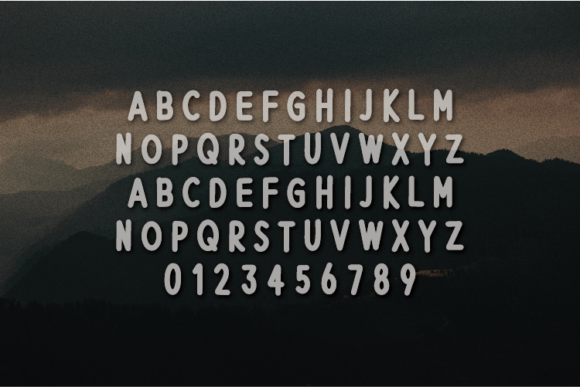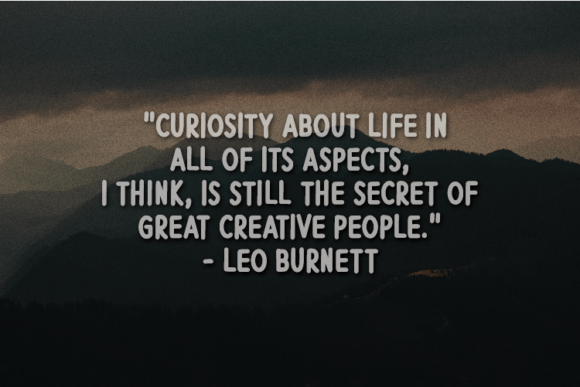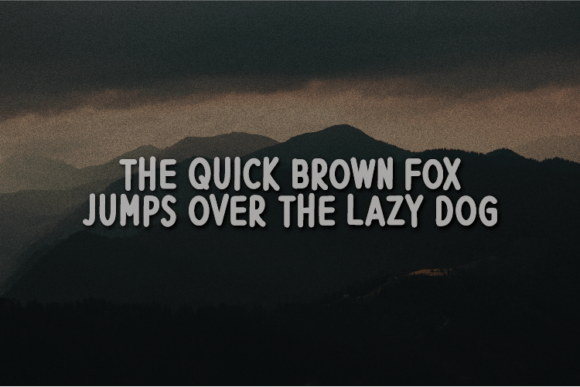
The Perfect Typography for Your Creative Masterpiece
Have you ever found yourself lost in the depths of a blank page, struggling to put your thoughts into words? That’s where the magic happens – when creativity strikes and your imagination runs wild. For designers, this moment is the spark that sets the stage for something truly remarkable.
Introducing the Andromeda Font, a natural sans serif font that brings a touch of elegance to your designs. This unique font is designed to stand out, not just for its aesthetic appeal, but also for its versatility. Perfect for quotes, notes, tees, and any product design, the Andromeda Font is a valuable addition to any designer’s toolkit.
With its natural indentation and sans serif design, the Andromeda Font offers endless possibilities for creative expression. Whether you’re a seasoned designer or just starting out, this font is sure to inspire your next project and leave a lasting impression.
Andromeda Font Key Features
- Font Family: Andromeda is a sans-serif font family, designed for both digital and print use.
- Unique Characteristics: Andromeda features a clean, modern design with geometric shapes and subtle rounded edges, making it ideal for digital interfaces and publications.
Designer Review: Andromeda Font
Overall, I’d say the Andromeda Font is a decent addition to any designer’s toolkit, but it’s not without its quirks. Let’s dive in.
- The font’s clean lines and minimalist aesthetic make it perfect for modern designs.
- The high x-height ensures readability, even at small font sizes.
- The font family includes a range of weights and styles, giving designers flexibility.
- The font’s limited language support may be a drawback for designers working with non-English texts.
- The font’s curves can feel a bit rough at certain sizes, which may affect its overall legibility.
- The font’s open-source nature means that its quality can vary depending on the user’s expertise.
Despite these limitations, I think the Andromeda Font has a lot to offer. Its clean design and high readability make it a great choice for modern designs, and its flexibility is a bonus. With some tweaks and refinements, I think this font could become a real powerhouse in the design world.
Andromeda Font is perfect for creating modern and futuristic designs in Canva.
Andromeda Font is ideal for creating custom graphics and logos in Adobe Photoshop or Illustrator.
Andromeda Font is perfect for creating modern and professional presentations in PowerPoint or Word.
Andromeda Font is commonly used for:
- Modern and futuristic designs
- Custom graphics and logos
- Professional presentations and reports
- Editorial and publishing designs
With its unique and modern style, Andromeda Font is perfect for designers and creatives who want to add a touch of futurism to their projects.